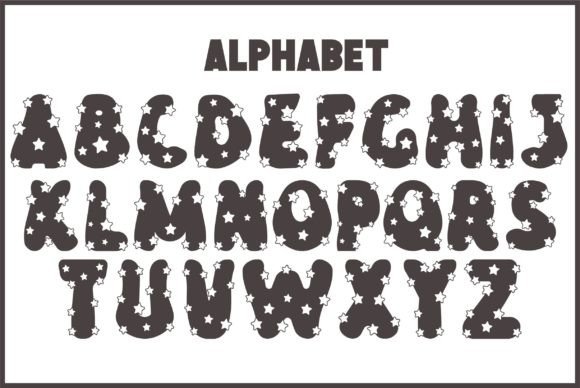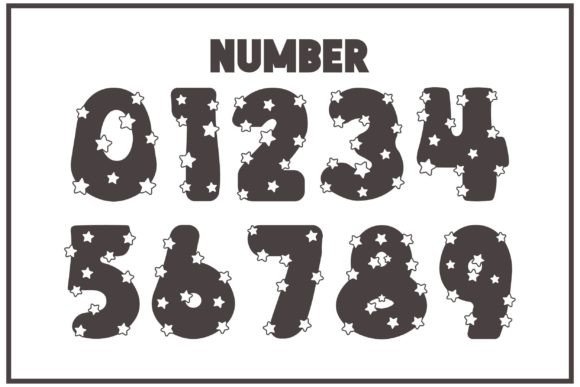
The Magic of Typography: Unleashing Creativity with the Groovy Stars Font
Have you ever stumbled upon a font that just makes you feel like dancing? For me, it’s that moment when the perfect combination of style and whimsy comes together, and I know I’ve found something special. It’s a feeling that’s hard to put into words, but it’s a rush of excitement that gets your creative juices flowing.
That’s exactly what the Groovy Stars Font does. This lovely decorative font is perfect for adding a touch of personality to your designs. Whether you’re creating logos, branding materials, or social media graphics, the Groovy Stars Font is a great choice. Its unique charm makes it a valuable addition to any designer’s toolkit, and its versatility ensures that it will always be a go-to font for creative projects.
Groovy Stars Font Key Features
- Font Family: Groovy Stars
- Unique Characteristics: Features a psychedelic, starry night sky design with a mix of rounded and angular shapes, creating a groovy and playful feel
Groovy Stars Font Review
✨ I’ve got to say, I’m loving the playful vibe of the Groovy Stars Font. It’s perfect for adding a touch of whimsy to your designs, especially those that need a bit of retro flair. The font’s unique star-shaped characters are undeniably eye-catching and will undoubtedly grab the user’s attention. ✨
✨ The font’s flexibility is also a major plus, as it works well in both digital and print formats. Whether you’re creating a social media post, a flyer, or a business card, the Groovy Stars Font is sure to make your design stand out from the crowd. ✨
⚠️ One of the main limitations of the Groovy Stars Font is its lack of versatility when it comes to formal or professional designs. The font’s playful nature can sometimes come across as immature or unpolished, which may not be suitable for more serious projects. ⚠️
While the Groovy Stars Font may not be the best fit for every design project, it’s certainly a great choice for those looking to add some personality and flair to their work. With its unique characters and flexibility, this font is sure to bring a smile to the user’s face and make their designs shine. Overall, I’d give the Groovy Stars Font 4 out of 5 stars. It’s a fun and creative font that’s perfect for designers who want to think outside the box.
The Groovy Stars Font is perfect for creating eye-catching titles and headings for music-related designs, such as album covers, posters, and flyers. It’s also great for adding a touch of nostalgia and retro flair to your designs.